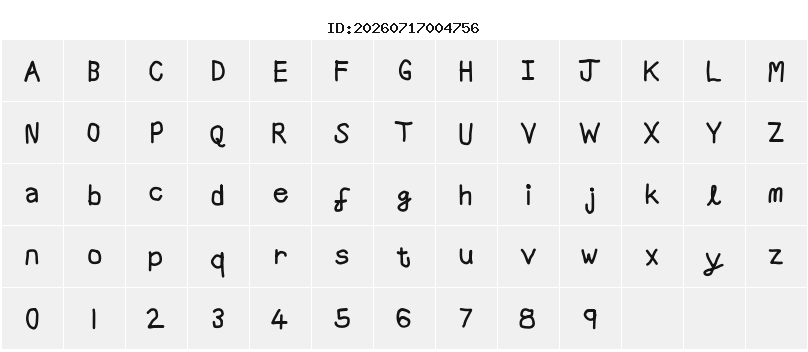
Aaron Sans Preview
• Font Name: Aaron Sans
About Aaron Sans.ttf
Aaron Sans.ttf is a modern, elegant sans-serif font designed for ultimate readability and visual harmony. Perfect for branding, headlines, web design, and print materials.